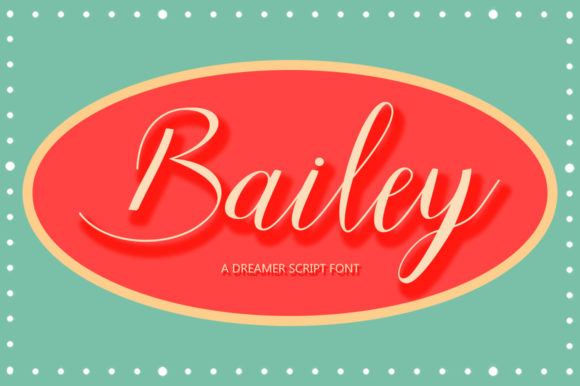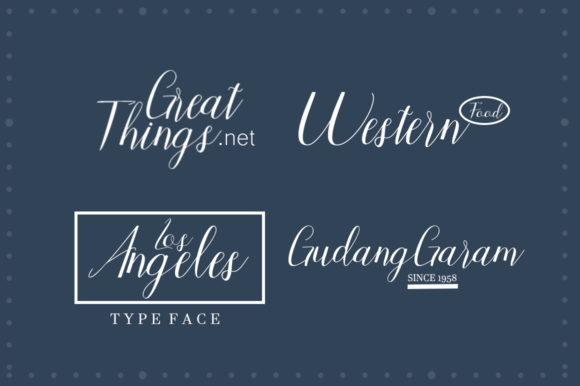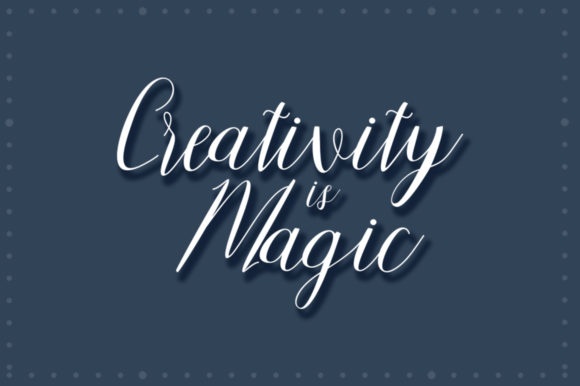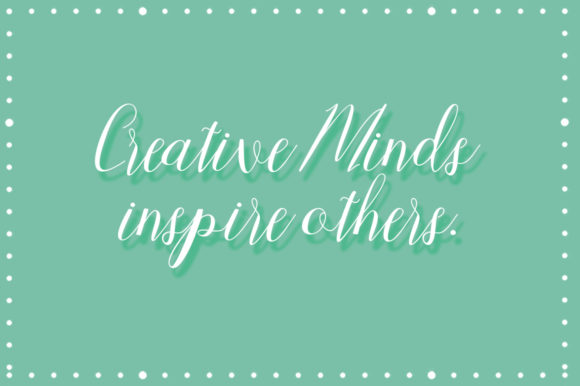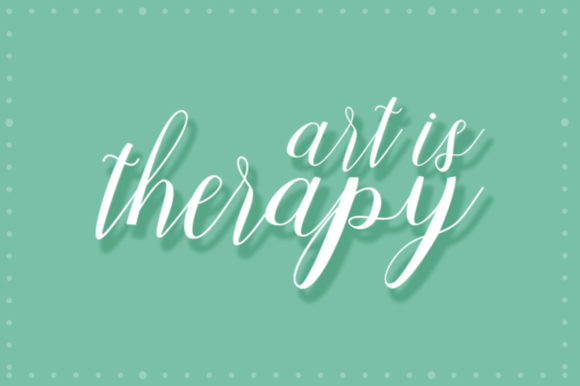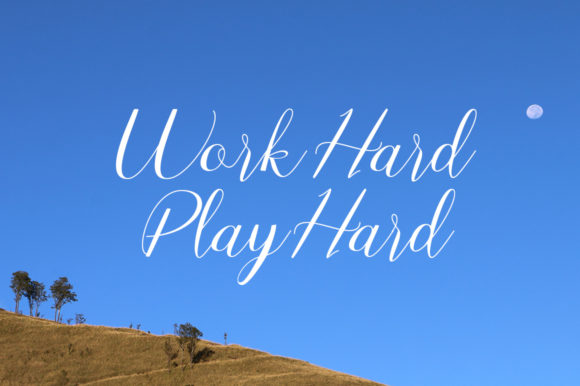
Bailey Font
About Bailey Font
Introducing “Bailey,” a lovely and flowing handwritten font that exudes charm and elegance. With its natural and unique style, this font is a perfect fit for a wide range of designs, allowing you to unleash your creativity and create spectacular visuals.
One of the exceptional features of “Bailey” is its PUA encoding, which grants you easy access to all the glyphs and swashes. This means you can effortlessly customize and add flourishes to your designs, giving them a personalized and artistic touch that sets them apart from the rest.
The varying baseline of “Bailey” adds a sense of movement and fluidity, giving your designs a dynamic and eye-catching appeal. The smooth lines and gorgeous glyphs contribute to the font’s overall beauty, making it an excellent choice for any project that needs a touch of handwritten elegance.
With its stunning alternates, “Bailey” offers a variety of design possibilities, allowing you to experiment and find the perfect combination that complements your creative vision. This versatility makes it an ideal font for various applications, including wedding invitations, thank you cards, quotes, greeting cards, logos, and business cards.
As you work with “Bailey,” you’ll fall in love with its incredibly versatile style, and you’ll notice how it effortlessly enhances your designs, making them stand out and capture the hearts of your audience.
Whether you’re creating for personal projects or professional endeavors, “Bailey” adapts seamlessly to any context, making it an indispensable addition to your font collection. Its graceful and flowing nature adds a touch of sophistication and class to your designs, elevating them to new levels of visual appeal.
Embrace the beauty and versatility of “Bailey” and let it be the font that inspires your creative journey. Fall in love with its elegant and flowing demeanor and experience the joy of creating with a font that brings a unique and captivating touch to every design.
So, let “Bailey” be your go-to font for all your lovely and flowing handwritten needs. Watch as it transforms your projects into works of art, leaving a lasting impression and bringing a touch of elegance to every design you create.
With “Bailey” at your fingertips, you’ll unlock a world of creative possibilities and design with a font that embodies beauty, charm, and timeless appeal. Fall in love with “Bailey” and let it be the font that adds a touch of magic to all your spectacular designs.